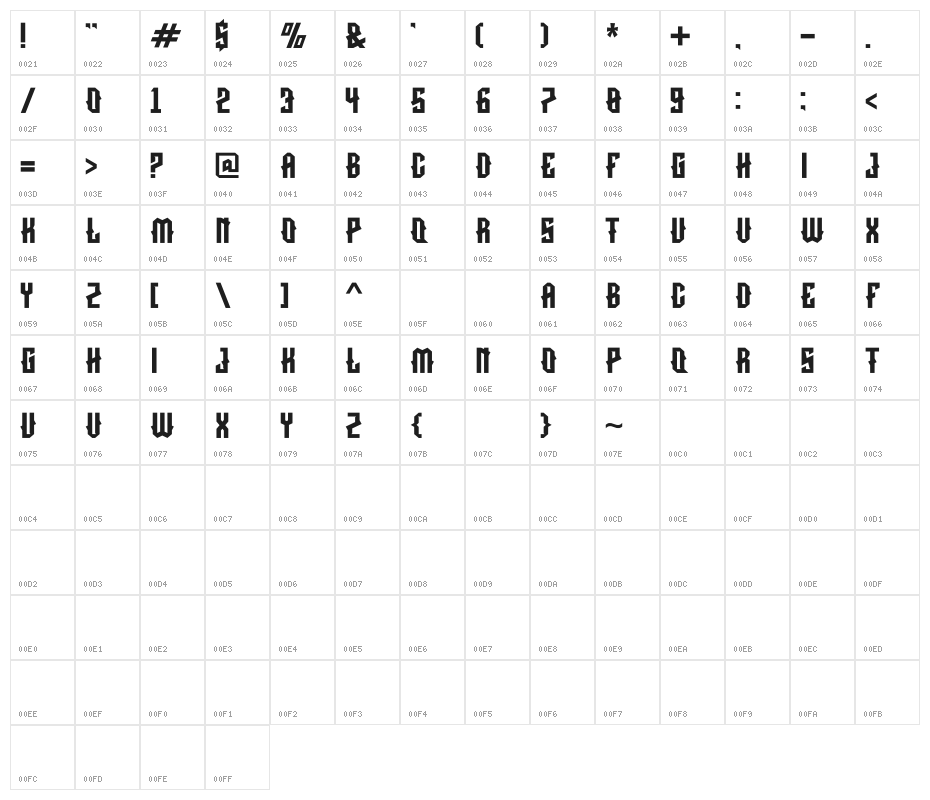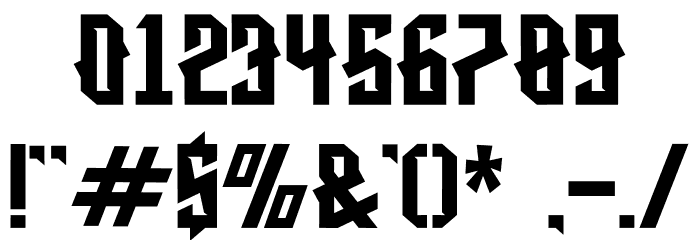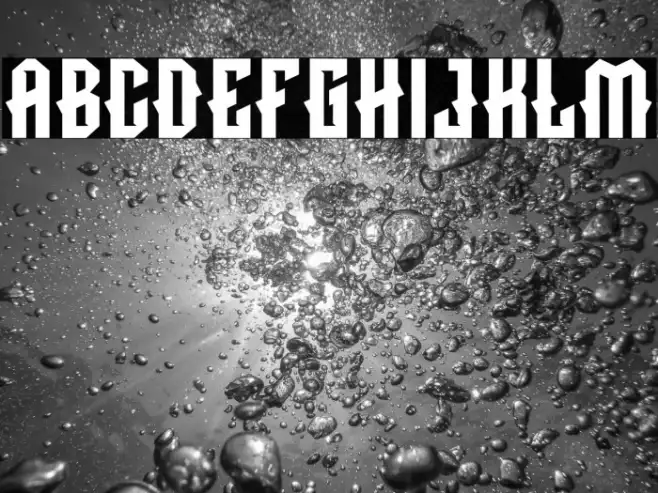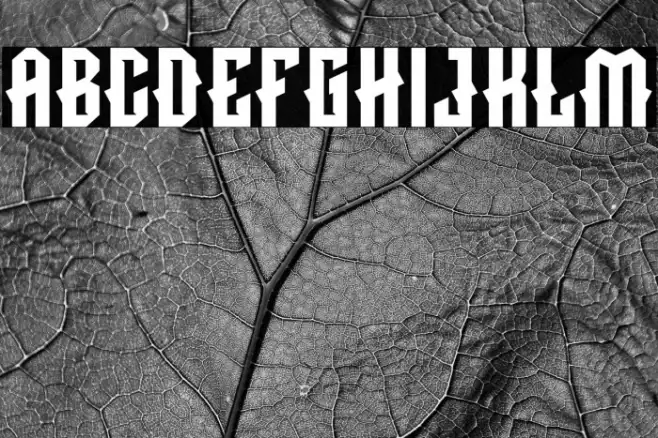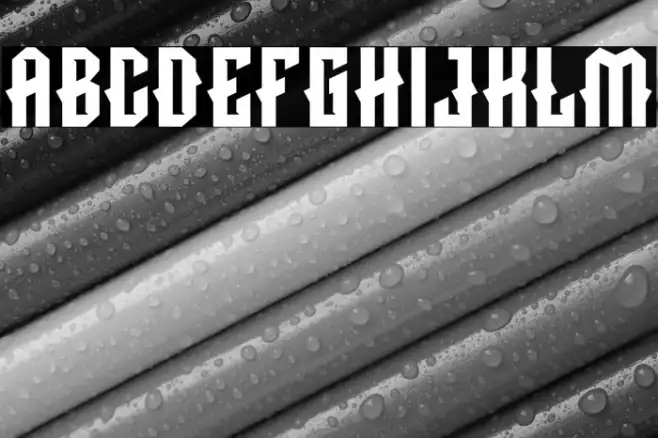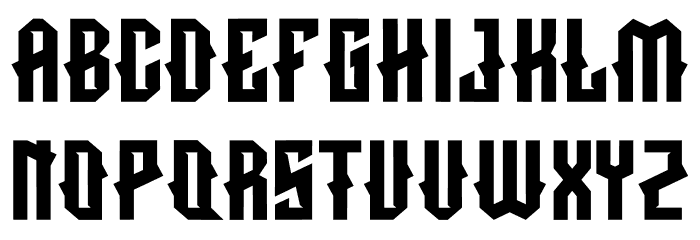
MONSHTER Font
MONSHTER Description
This font features a bold, angular design with a strong geometric influence. The characters are constructed with sharp edges and a blocky appearance, creating a striking and modern aesthetic. The uppercase and lowercase letters maintain a consistent style, with the uppercase being slightly more pronounced. Numbers and special characters follow the same design principles, ensuring uniformity across all glyphs. The font's unique style makes it stand out, suitable for projects that require a bold and impactful visual presence.